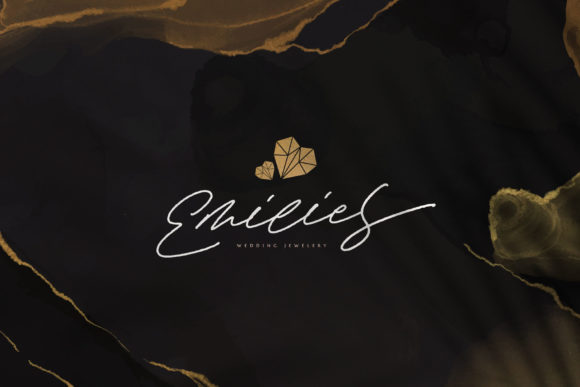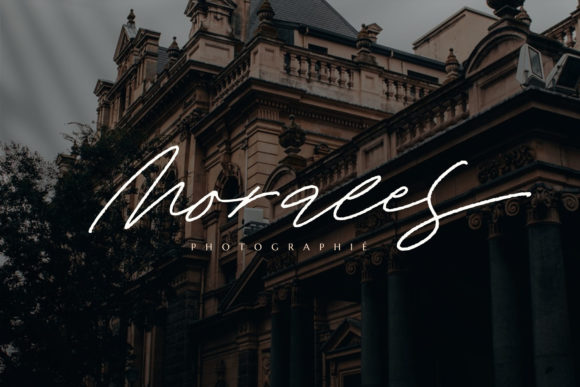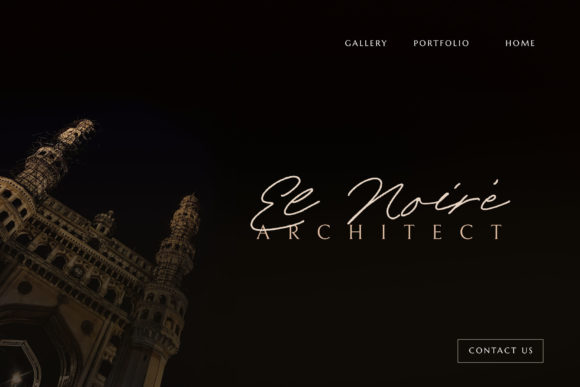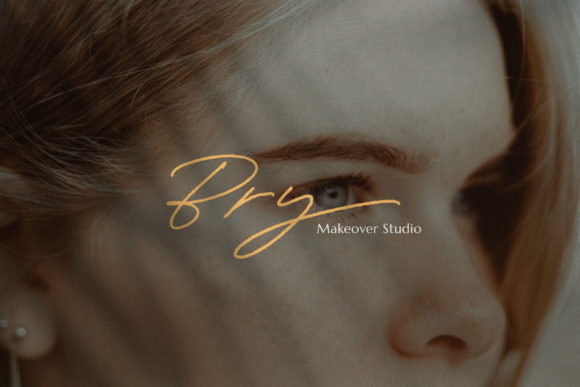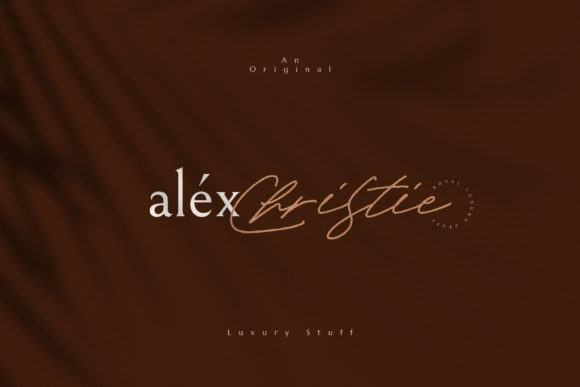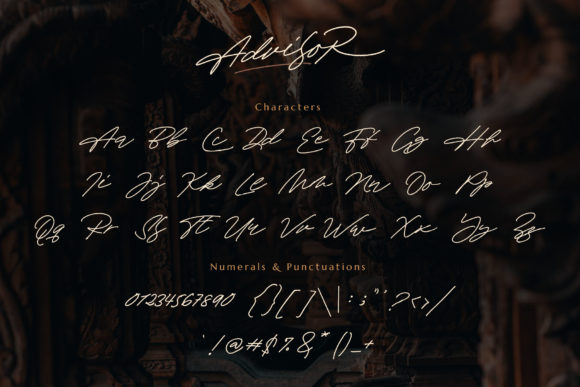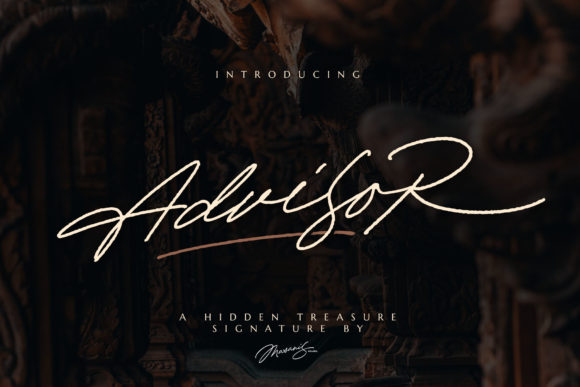
The Elegance of Advisor Font: A Designer’s New Best Friend
I still remember the project – a wedding stationery suite for a close friend. I had all the design elements ready: the watercolor illustrations, the elegant layout, and the beautiful color palette. But, I was stuck on one thing: the font. I wanted something that exuded elegance, sophistication, and a touch of modernity. That’s when I stumbled upon Advisor Font, and it instantly became my go-to choice.
An Honest Review of Advisor Font
- ✨ Elegant Calligraphic Influences: Advisor Font masterfully blends traditional calligraphy with modern sensibilities, making it perfect for designs that require a touch of sophistication.
- ✅ Versatility: This font is incredibly versatile, making it suitable for a wide range of design projects, from letterheads and titles to stationery and more.
- 💫 Contemporary Feel: Advisor Font feels fresh and contemporary, ensuring your designs won’t look outdated or stale.
While Advisor Font is an excellent choice, there are a few minor quirks to be aware of:
- ⚠️ Limited Use of All Caps: While the font looks stunning in uppercase, it’s best used sparingly. Overusing all caps can make the text feel somewhat less elegant.
- 🤔 Some Alternates Can Feel a Bit Quirky: A few of the stylistic alternates can feel a bit unconventional. However, these can also be a great way to add some personality to your designs.
The Backstory of Advisor Font
Advisor Font was designed with the goal of creating a modern, elegant script font that still honored traditional calligraphic influences. The designer aimed to craft a font that felt both sophisticated and approachable – perfect for a wide range of creative projects.
| What makes Advisor Font unique? | Advisor Font stands out due to its elegant calligraphic influences, contemporary feel, and versatility across various design projects. |
| Does Advisor Font support OpenType features? | Yes, Advisor Font supports OpenType features, including stylistic alternates and glyphs, which can enhance your designs. |